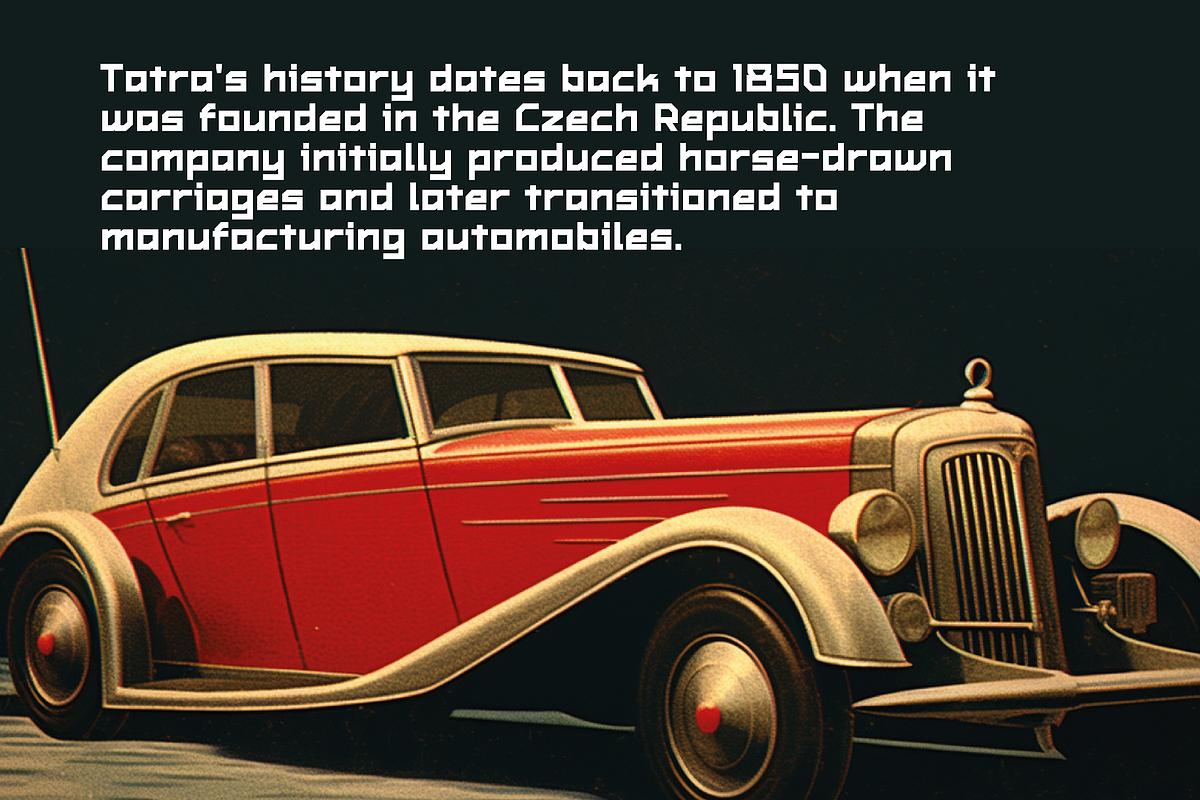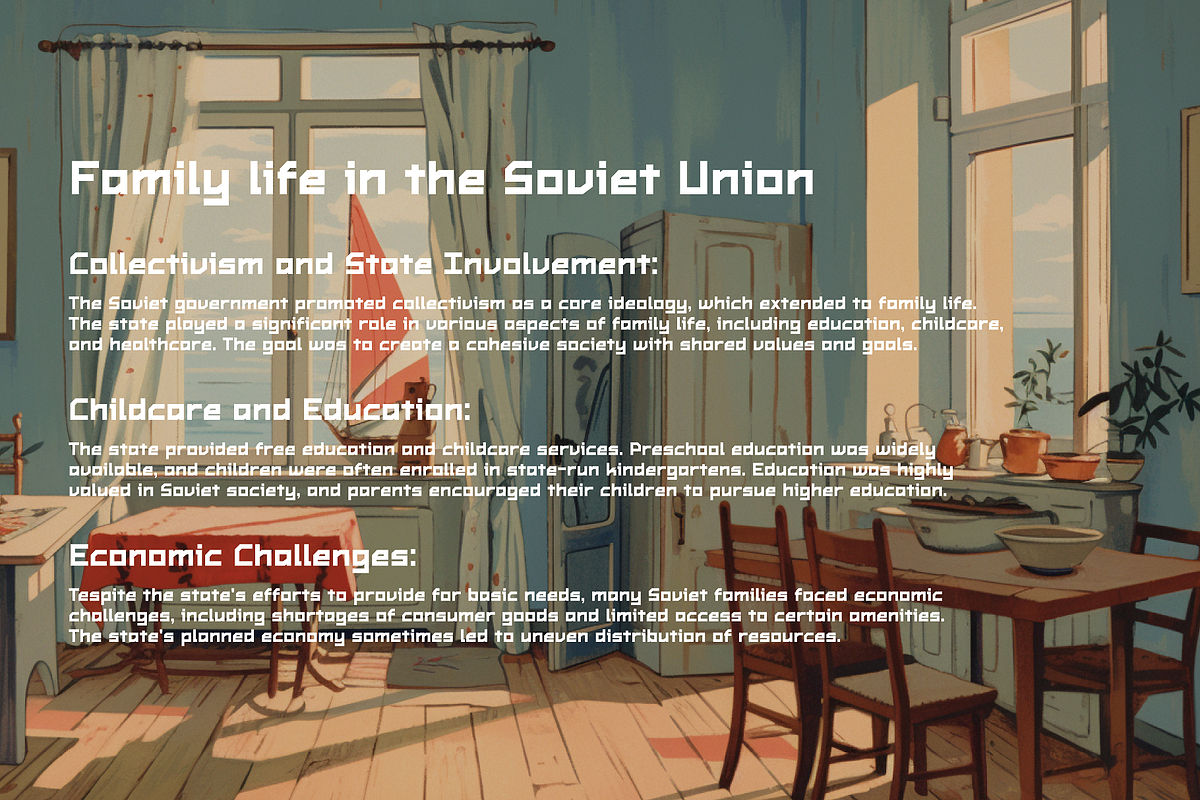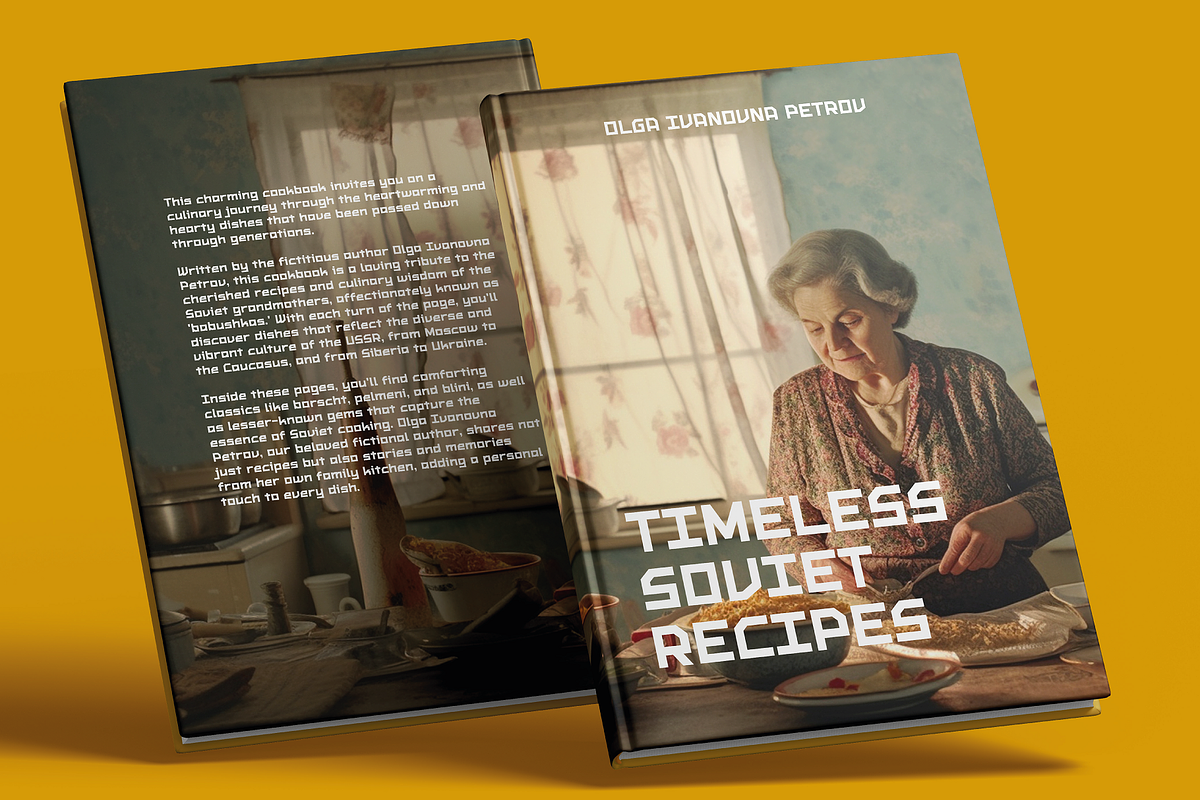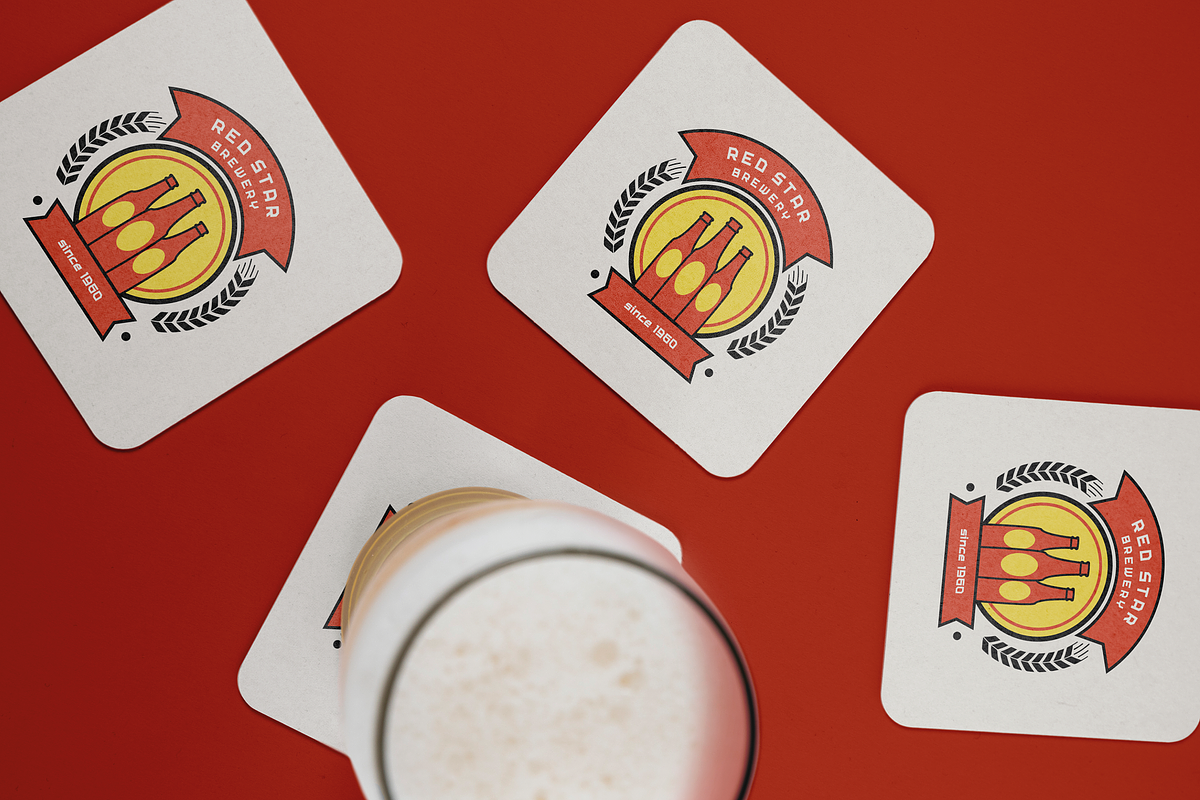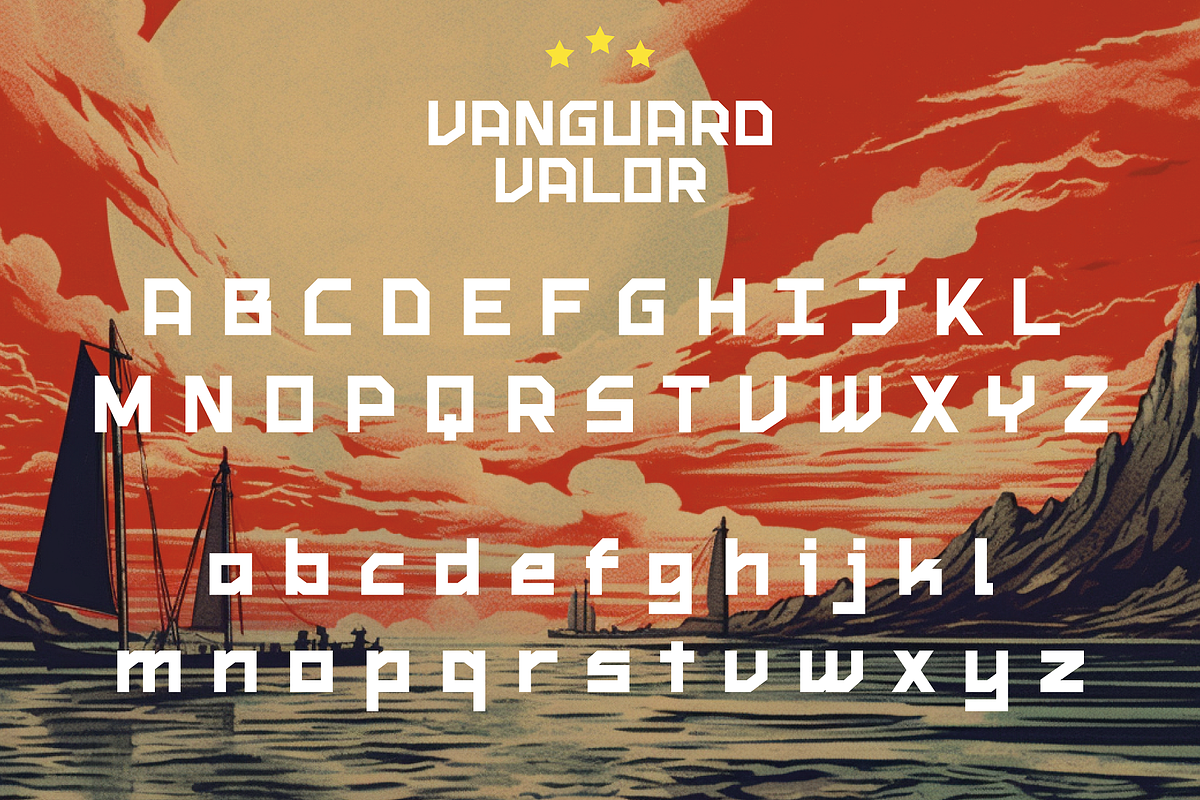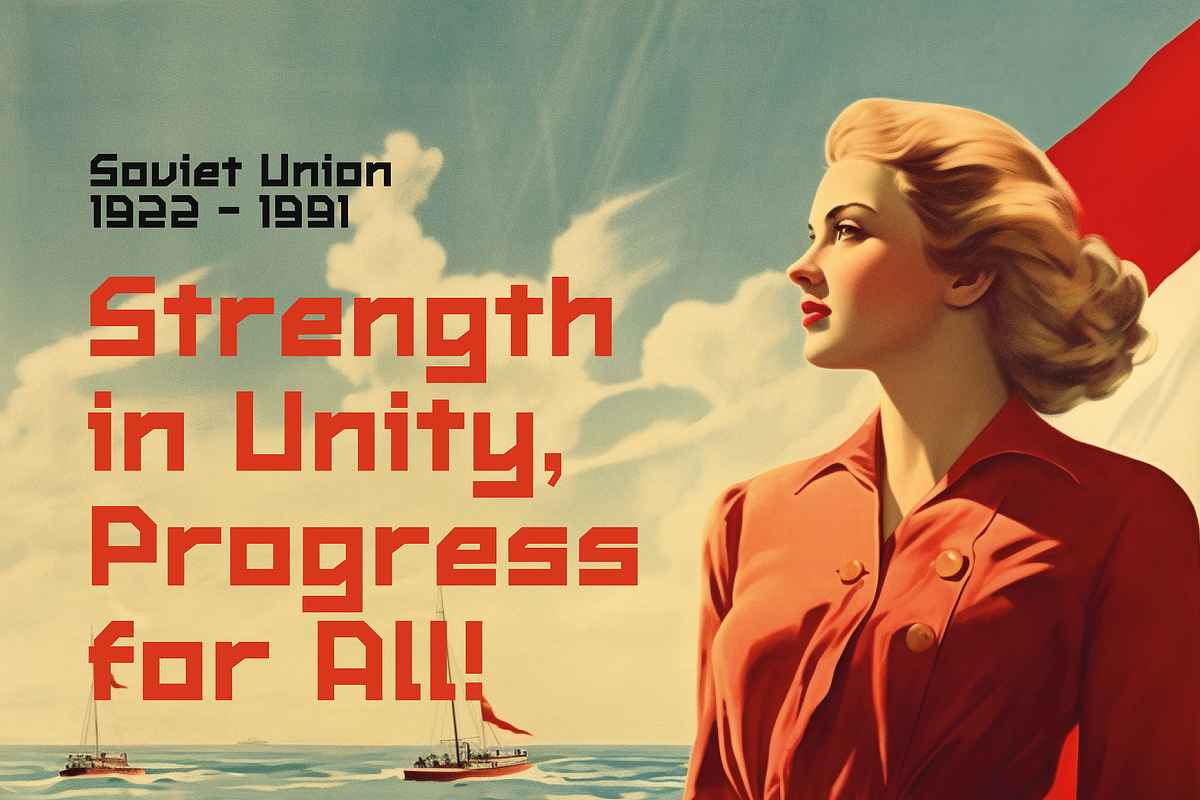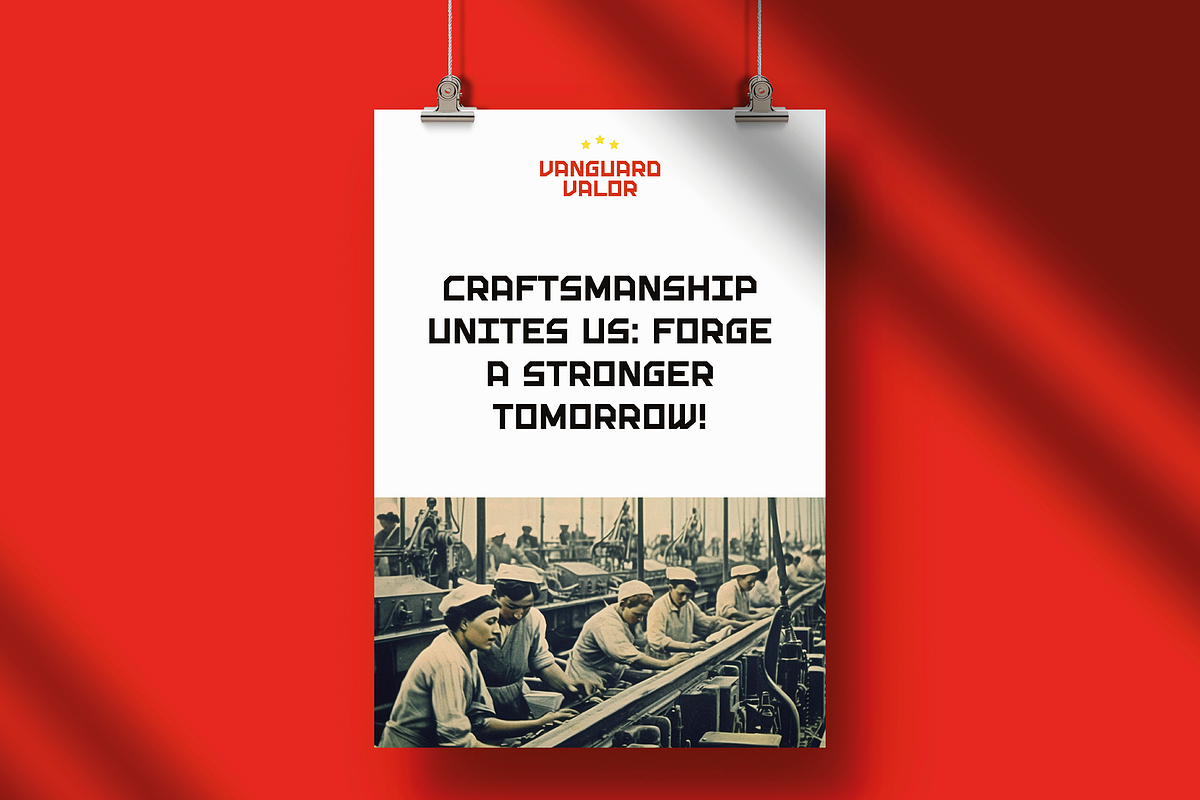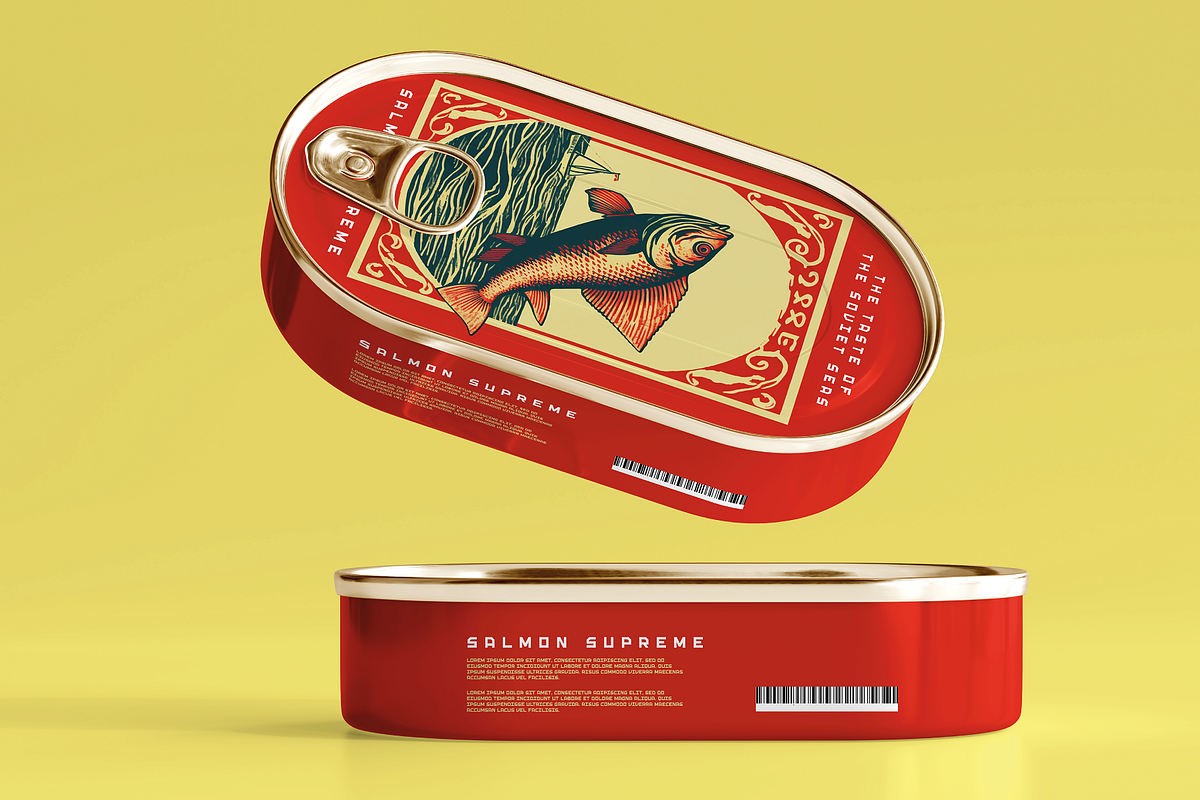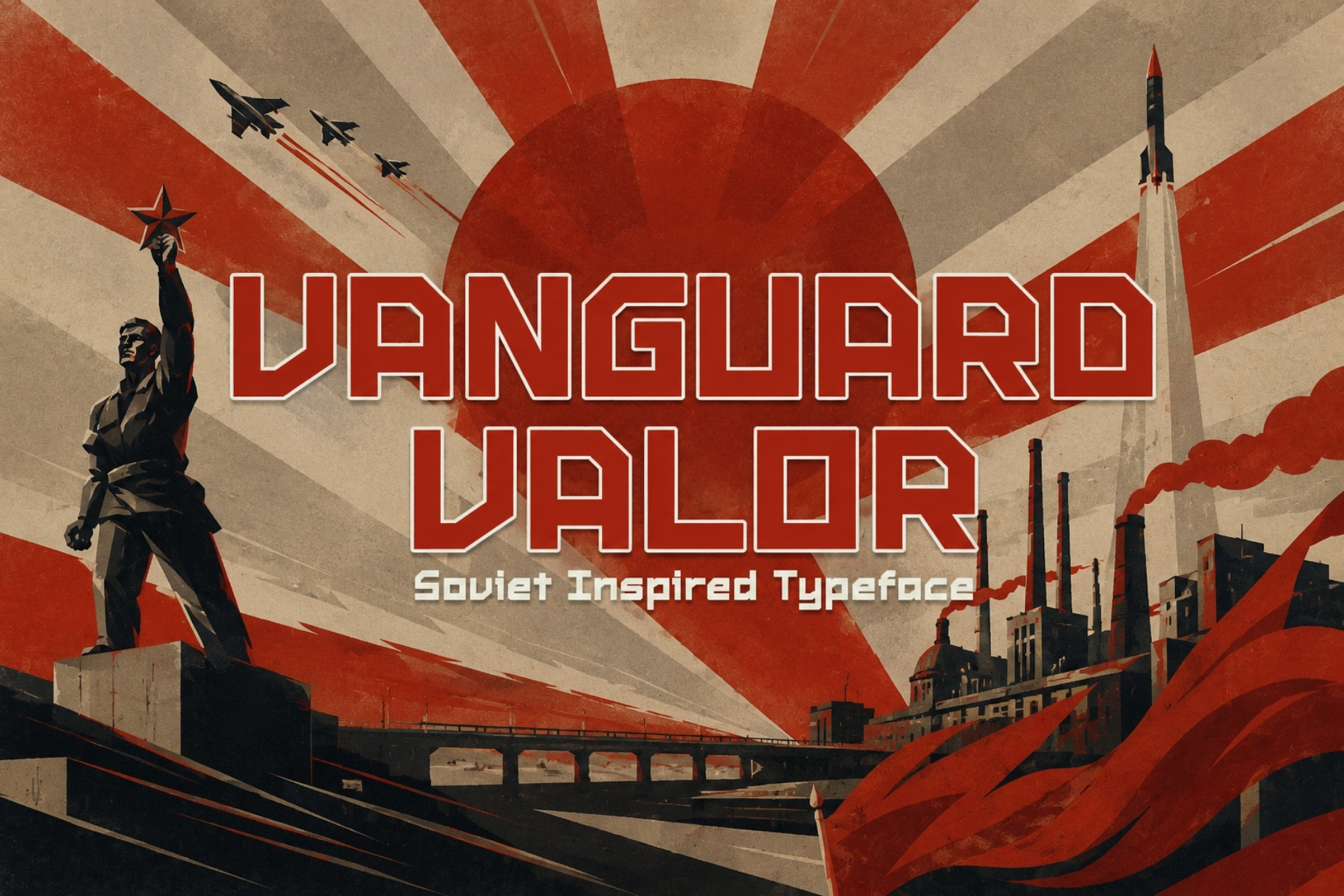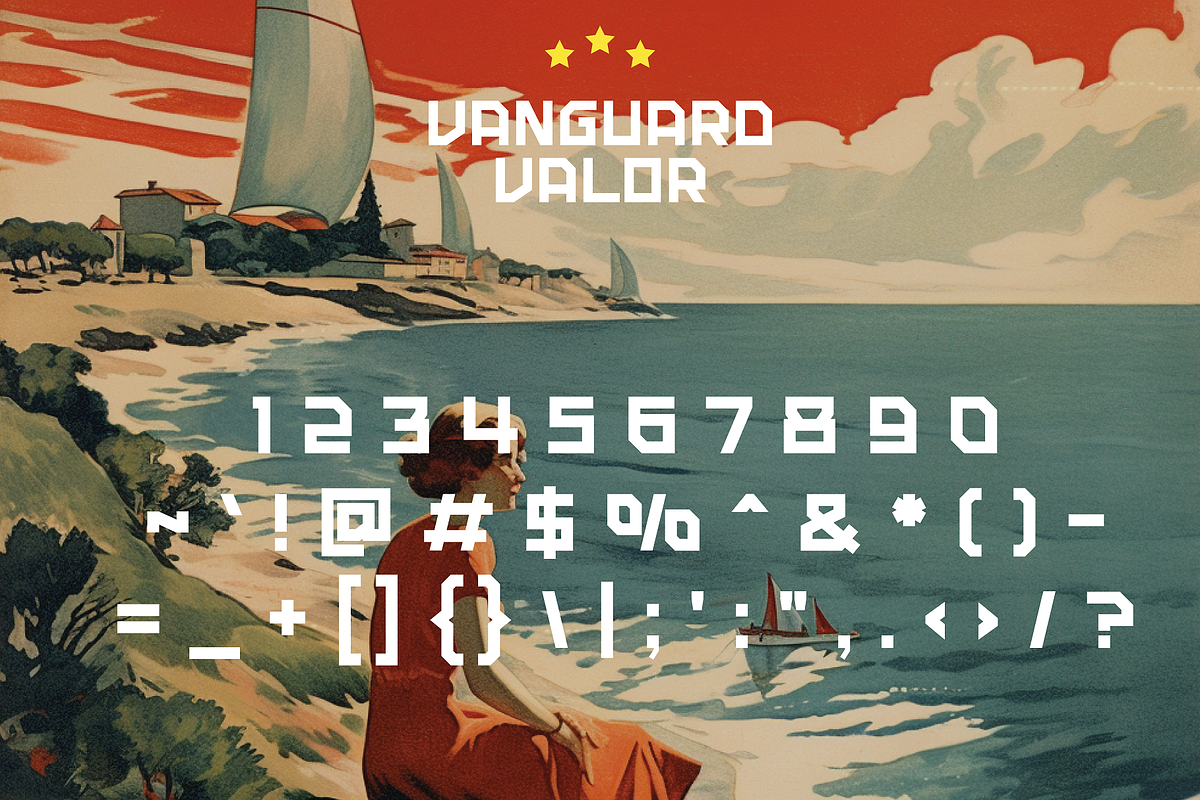
Vanguard Valor - Soviet Typeface
Step into the echoes of history with Vanguard Valor, a typeface deeply inspired by the compelling visual narratives of the Soviet era. A tangible testament to a time when design played a pivotal role in political and social movements, Vanguard Valor combines robust construction with stark aesthetics, reminiscent of the powerful propaganda posters that once adorned the walls of the USSR.
This vintage typeface captures the raw energy and bold ambition of a bygone era. Its characters are constructed with a blend of assertive geometrics and striking angularity, evoking memories of monumental murals, worker rallies, and the indomitable spirit of the Soviet populace.
Vanguard Valor is not merely a typeface, but a journey through time. Each letterform tells a story of resilience, unity, and the ceaseless drive of a people forging their destiny. Ideal for projects that demand a touch of historical gravitas or for designs that aim to evoke strength and solidarity, Vanguard Valor is a salute to the past while resonating with contemporary sensibilities.
Embrace the spirit of an epoch with Vanguard Valor and let your designs command attention, echoing the resounding voices of the heroes and pioneers of yesteryears.